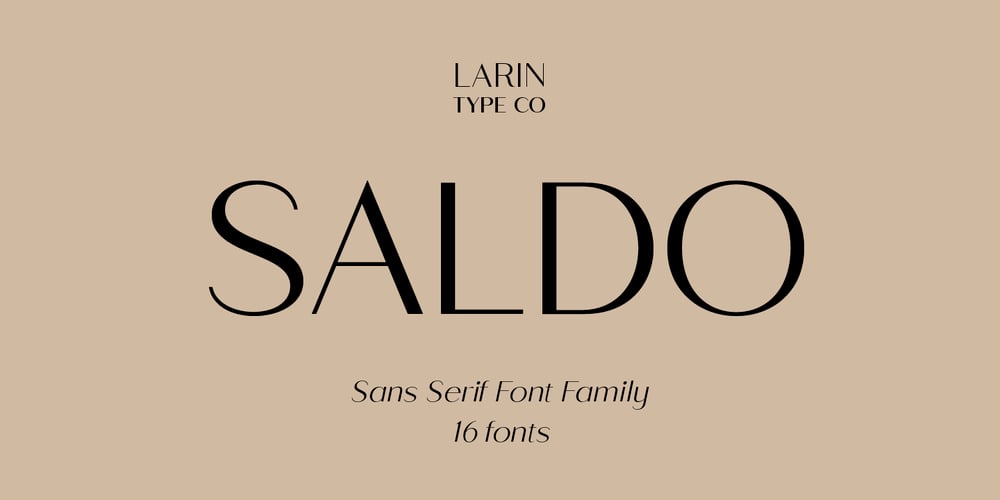
Saldo Font Family was designed by Pavel Larin and published by Larin Type Co. Saldo contains 16 styles and family package options. Saldo is a modern and sleek sans-serif font designed for maximum readability and legibility. With its clean and crisp lines, Saldo is perfect for any project that requires a professional and sophisticated look. Its minimalistic design is versatile and can be used in a variety of settings, from business documents to branding and marketing materials. Saldo is a great choice for designers who want a font that is both contemporary and classic. Full alphabet with Uppercase and Lowercase A-z Alternates for uppercase “R, K” Alternates for lowercase “f, k, t, y” Ligatures “ff, fi, ffi” Numbers, fractions Punctuation and symbols Multilingual support